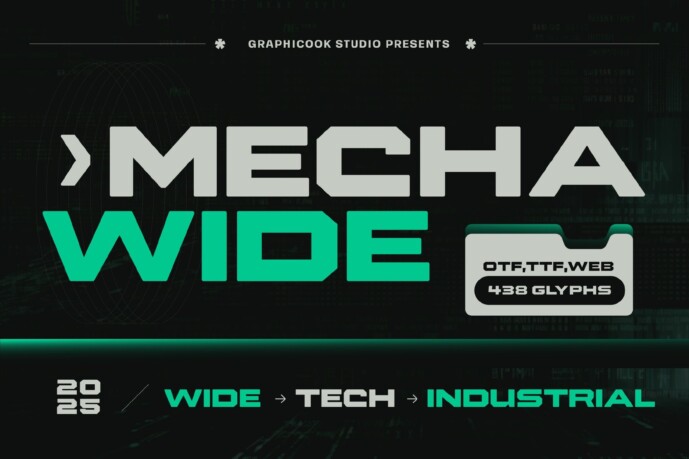
Mechawide Font
Designer: graphicook
Mechawide is an experimental sans-serif font with wide letterforms that convey a modern, futuristic impression. It’s perfect for headlines, professional designs, or projects with a technology-driven theme.